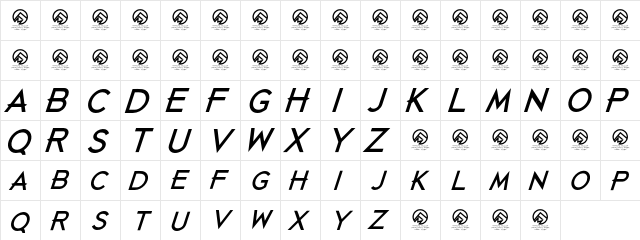
Just Die Already Black Italic
Design Context for Just Die Already Black Typeface
Just Die Already Black takes a measured approach to typography — its balanced proportions and neutral character make it a reliable workhorse for both digital and print work. The dynamic lean of this cut emphasises speed and emphasis in any layout.
Pro Tip: Try Just Die Already Black for annotation and caption copy alongside an upright companion — the contrast in angle creates a dynamic but ordered typographic system.